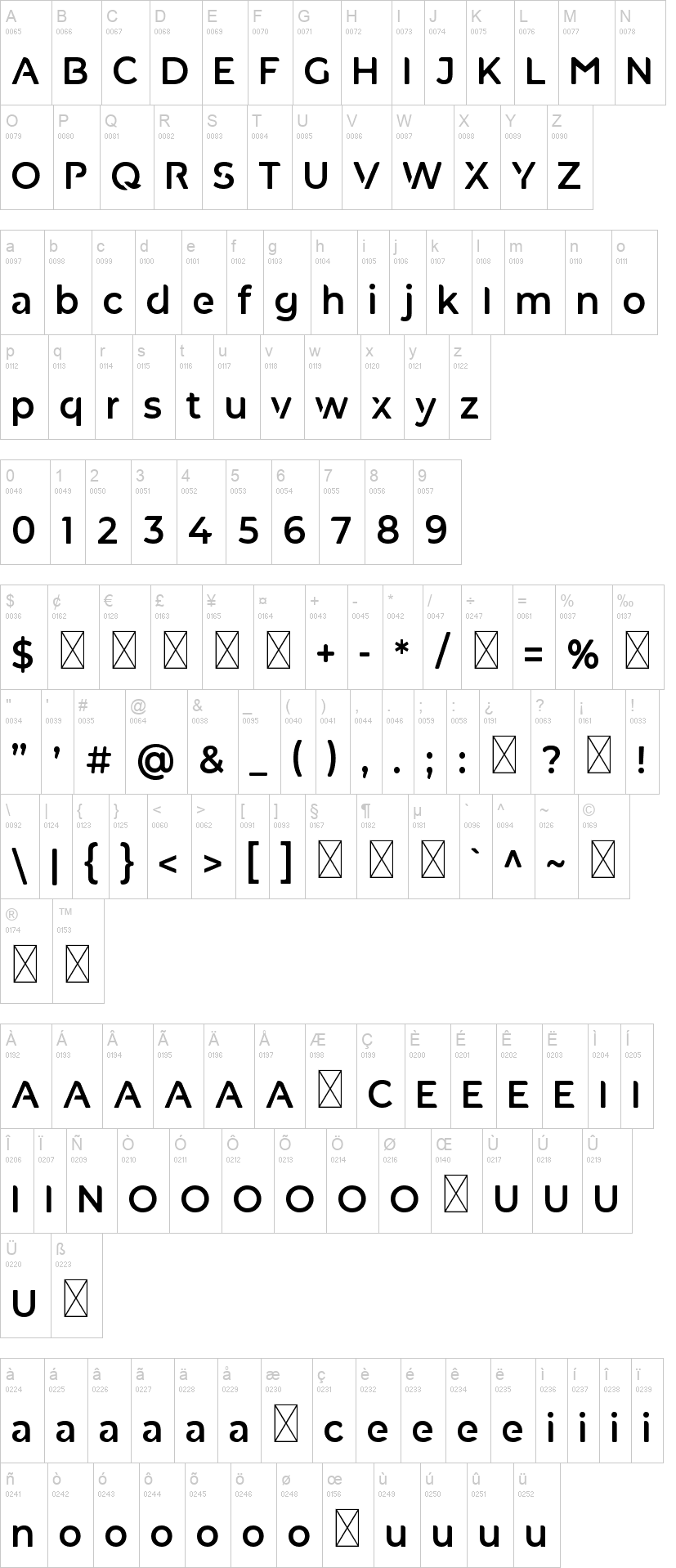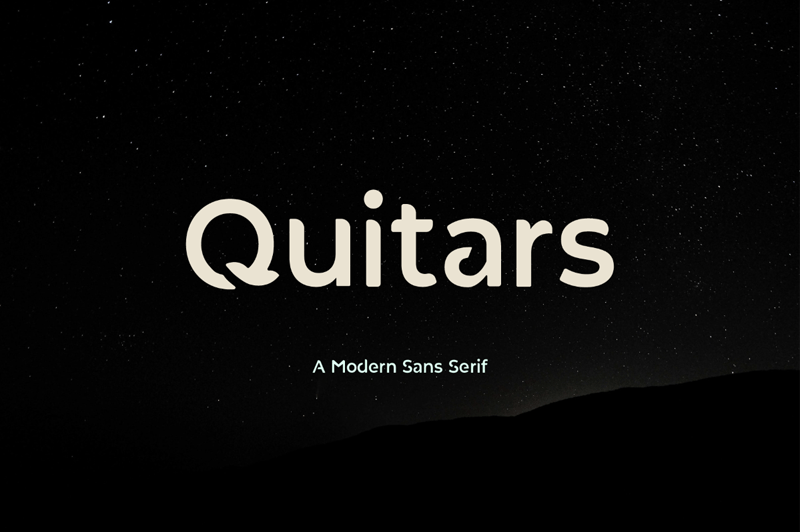
Note of the authorQuitars is perfect for a modern look. It has a casual feel in an otherwise modern typeface and is perfect for adding personality to your designs.